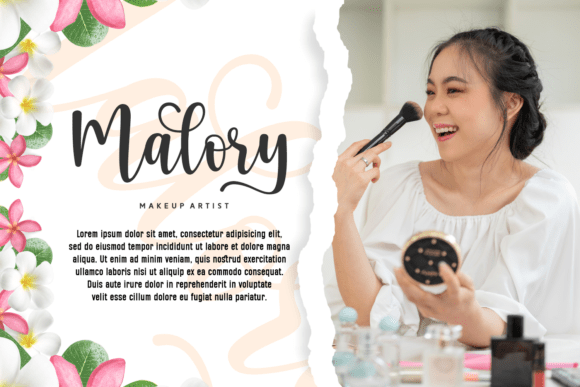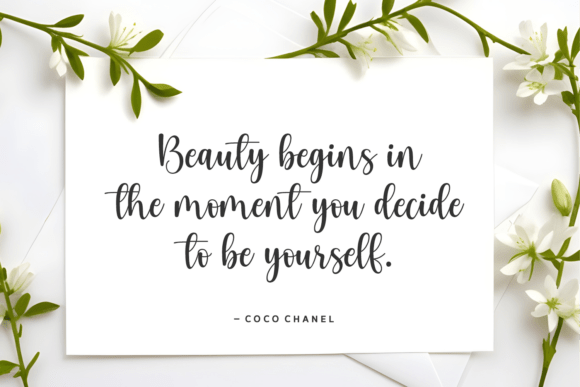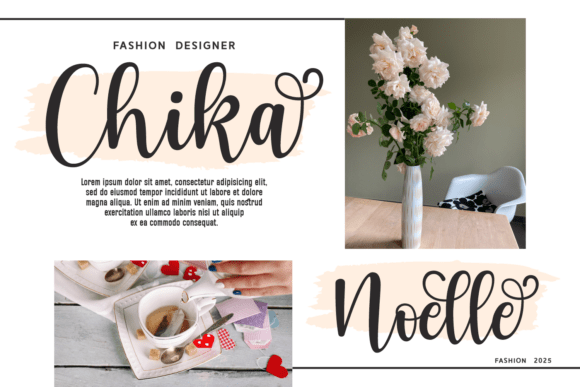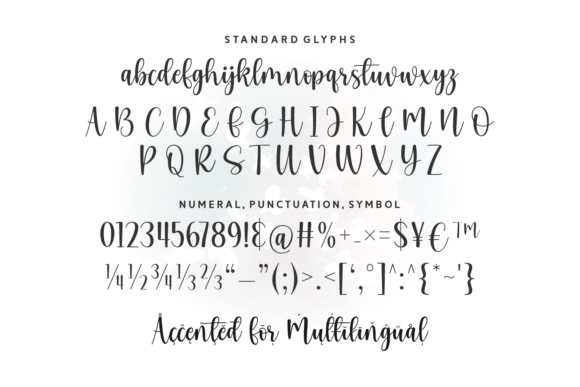
Introduction to Noble Reward Font
Have you ever stumbled upon a font that transports you to a world of elegance and sophistication? For me, it was the moment I laid eyes on the Noble Reward Font. Its luxurious strokes and romantic flourishes instantly sparked a creative vision – a beautiful wedding invitation, perhaps, or a heartfelt quote on a luxurious card.
As a designer, I can attest that finding the right font can be a game-changer. It’s what elevates a design from ordinary to extraordinary, and that’s exactly what the Noble Reward Font does. Its bold yet graceful letterforms are a valuable resource for any creative project, from upscale branding to floral packaging.
Whether you’re looking for a free download or a high-quality design resource, the Noble Reward Font is a must-have for any designer. With its elegant swashes and transparent background, it’s the perfect addition to any project that requires a touch of timeless beauty and expressive charm.
Key Features of Noble Reward Font
- Unique Hand-Drawn Design: The Noble Reward Font features a distinctive hand-drawn style, perfect for adding a personal touch to creative projects.
- Perfect for Creative Projects: This font is designed to add a touch of elegance and sophistication to creative projects, making it an excellent choice for designers and artists.
Honest Review: Noble Reward Font
I recently had the chance to work with the Noble Reward Font, and I’m excited to share my honest review with you. As a designer, I’m always on the lookout for high-quality design resources that can elevate my creative projects. The Noble Reward Font definitely fits the bill.
Here are some things that worked well for me:
- ✨ The font is highly customizable, allowing me to adjust the size, color, and style to suit my design needs.
- ✨ The transparent background makes it easy to integrate the font into my design without any distracting visual noise.
While the Noble Reward Font is a great resource, there are a few limitations to be aware of:
- ⚠️ The font may not be suitable for very large or complex projects, as it can be prone to pixelation at certain sizes.
Overall, I’m impressed with the Noble Reward Font and would recommend it to designers looking for a high-quality, free download design resource. Just be sure to use it within its limitations, and you’ll be golden.
Noble Reward Font
The Noble Reward Font is a high-quality design resource ideal for creative projects that demand a touch of sophistication. With its elegant and modern design, this font is perfect for various applications, from business presentations to marketing materials.
To get the most out of the Noble Reward Font, use it with a transparent background to create a modern and sleek design. Experiment with different font sizes and styles to add depth and visual interest to your project. You can also combine it with other design elements to create a unique and eye-catching design.
The Noble Reward Font is perfect for various use cases, including business presentations, marketing materials, product labels, and packaging design. Its elegant and modern design makes it ideal for any project that demands a touch of sophistication.